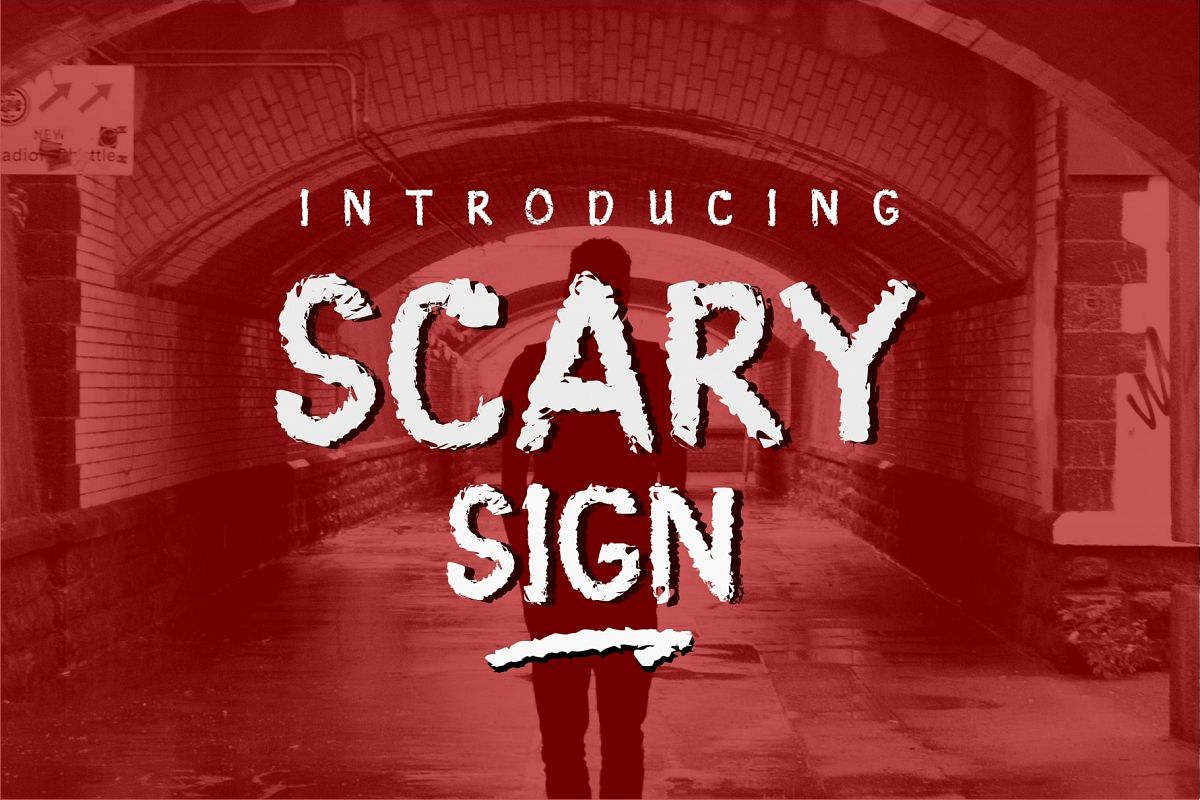
Introducing Scary Sign font, the name is inspired by scary tale in novel. Scary Sign
is rough font that perfect to palacing in your project which have
horror, scary, dark, or spooky theme. But this font also perfect to
other themes according your creativity. You will getting free 12 swash
bonus to complement the Scary Sign font.